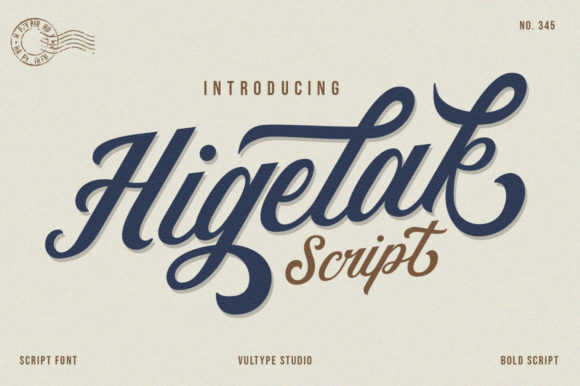
Prepare yourself to be enchanted by Higelak, a font that's as captivating as a vintage love letter and as timeless as the tales it tells. Step into a world where every word dances with character, carrying the whispers of the past.
Picture this: a handwritten masterpiece that weaves its way into your designs, imbuing them with a sense of history and charm. Each stroke is a testament to the artistry of bygone eras, transporting you back to a time when letters were crafted with care and intention.
Higelak is not just a font; it's a gateway to a bygone era. It's the perfect choice for those who seek to evoke nostalgia, create a sense of authenticity, or simply add a touch of whimsy to their designs.
Imagine headlines that leap off the page, each letter a work of art. Picture invitations that carry the weight of a cherished heirloom. Let Higelak be the storyteller in your designs, captivating your audience with its timeless eloquence.
But Higelak is more than just a pretty face. It's a font that's as versatile as it is beautiful. Its vintage charm effortlessly adapts to modern sensibilities, making it a perfect fit for a wide range of projects.
Whether you're crafting logos, designing packaging, or creating posters, Higelak has the versatility to match your vision. Its ability to blend seamlessly into any context makes it a true gem in the world of typography.
With Higelak, you'll have the confidence to create designs that stand the test of time. Its PUA encoding ensures effortless access to a treasure trove of glyphs and swashes, empowering you to add a touch of flair to your creations.
So, why settle for ordinary when you can embrace the extraordinary? Let Higelak be the muse for your next design masterpiece. Let its timeless beauty transport your audience to a realm of wonder and enchantment.